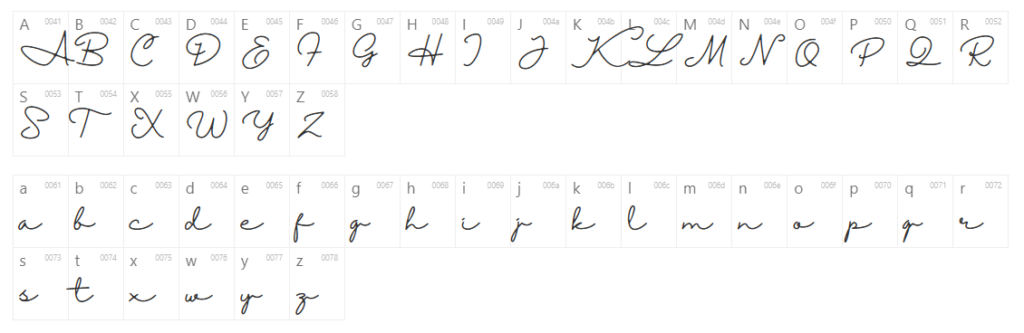
The Halimun Font is known for having an impact on design, especially in terms of branding, ease of reading, as well as the overall user experience. One typeface that has become very popular among designers and other creative professionals is Halimun Font.
The Halimun font is characterized as one that replicates a person’s graceful and artful handwriting, making it perfect for personal projects. From branding to wedding invites and social media posts graphic designs, Halimun Font is simply superb and sophisticated.
What is Halimun Font?
If you’re looking for an elegant touch to any script typeface, Halimun Font provides smooth, flowing letterforms that aid in creating a more fluid and natural look. This font is perfect for projects that highlight sophisticated branding. Because of its legibility, this font works great for invitations and product packaging as well.
Features of Halimun Font
Halimun Font features an elegant, flowing handwritten script with smooth curves, making it perfect for stylish and sophisticated design projects.
- Elegant & Handwritten Style – Offers a natural, stylish handwritten look.
- Smooth and Fluid Letterforms – Provides a seamless and aesthetic script appearance.
- Versatile & Readable – Works well for branding, packaging, and social media designs.
- Multilingual Support – Includes a range of characters to support multiple languages.
Applications of Halimun Font
Halimun Font is widely used across different design industries due to its stylish and sophisticated appeal. Some of its common applications include:
1. Branding & Logo Design
- Ideal for luxury brands, fashion labels, and boutique businesses looking for a stylish and elegant typeface.
- Works well in signature-style logos for personal branding.
2. Wedding & Invitation Cards
- Perfect for wedding stationery, save-the-date cards, and greeting cards.
- Adds a romantic and artistic touch to invitations.
3. Social Media & Content Creation
- Enhances visuals for Instagram posts, YouTube thumbnails, and Pinterest graphics.
- Used for calligraphy-style captions and quotes.
4. Packaging & Product Design
- Commonly used in cosmetic, skincare, and handcrafted product packaging.
- Complements boutique and artisanal product branding.
5. Personal & DIY Projects
- Great for scrapbooking, greeting cards, and home decor prints.
- Popular among handmade craft businesses.
Alternatives to Halimun Font
- Allura
A smooth flowing script font. Similar to Halimun, it is delicately light in weight and is suited to be used in invitations, branding, or social media designs.
- Great Vibes
With this free script font, more flair and decoration than Halimun you have achieved, as, if you are looking for more poetry but trying to remain readable, a good font-one for Haliral is.
- Pacifico
Fun and relaxed with a little bit of bounce and whimsy, Pacifico is a free script font. It is a nice Halimun substitute if you want to have a fun and also retro style of tummy tuck with a comfortable sensation.
- Sacramento
Crisp and minimal, Sacramento conveys the same handwritten feel as Halimun but with a more understated touch–a good choice when you want the branding to be discreet.
- Alex Brush
Using beautiful flowing lines, Alex Brush is one of the most adaptable script fonts, which is given similarity to the self-expression of Halimun and adds a hint of splendor to the font.
- Dancing Script
Playful and bouncy, Dancing Script has something of the handwritten look but with greater beat and character and is ideal for light- psychedelicappropriate projects.
- Pinyon Script
More decorative than Halimun, Pinyon Script works well for formal uses like wedding stationery or luxury branding.
Conclusion: Halimun Font
Halimun Font is an all-around elegant typeface which is best suited for invites, branding, and other creative works. Designers and content creators enjoy using Halimun Font due to its appealing, smooth, and decorative script style. Whether you are creating a logo, building wedding stationery, or an engaging post for social media, Halimun Font will always make your project look better at any level.